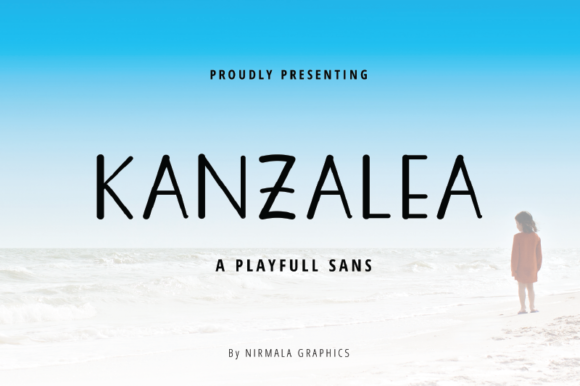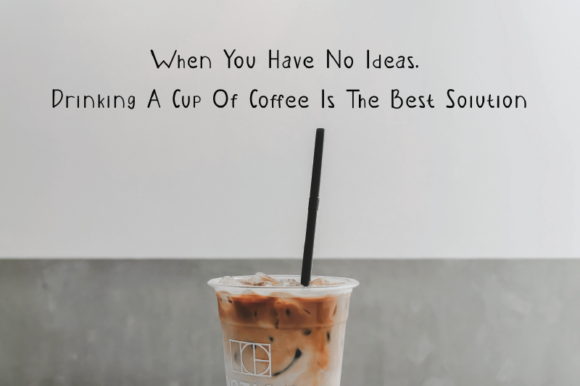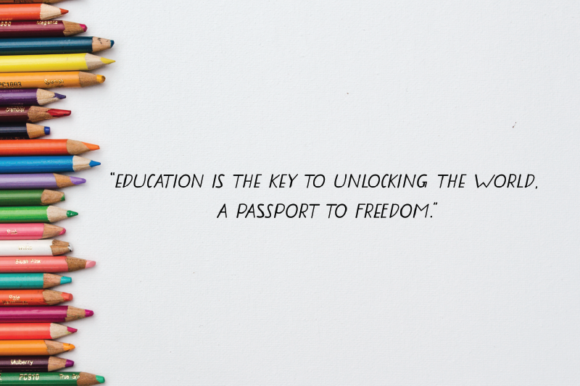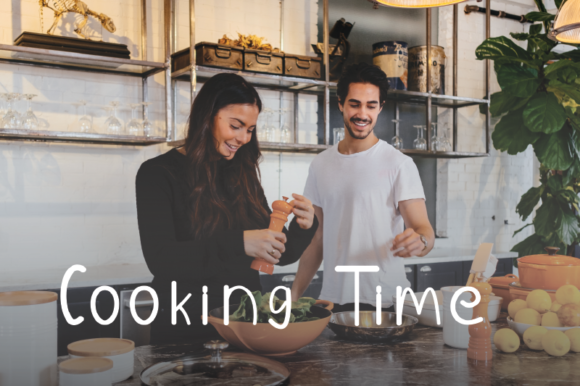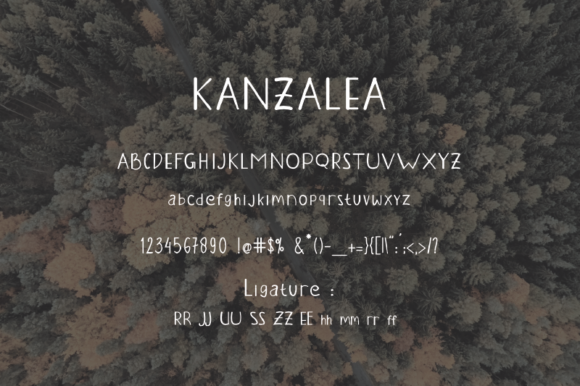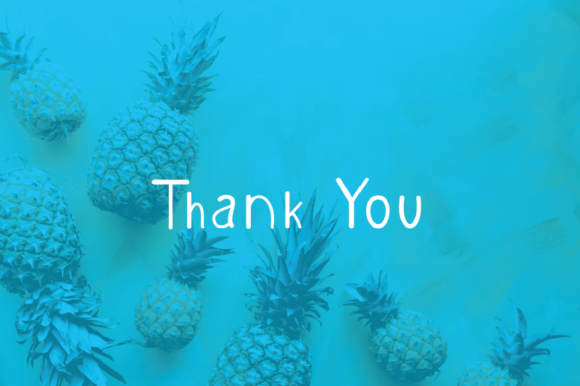
HomeScript FontsKanzalea Font Script Fonts Kanzalea Font FacebookXPinterestWhatsApp Kanzalea Font Poster 2 Kanzalea Font Poster 3 Kanzalea Font Poster 4 Kanzalea Font Poster 5 Kanzalea Font Poster 6 About Kanzalea Font Kanzalea is a playful sans typeface made with unusual letters. Get inspired by its contemporary coolness! DOWNLOAD ON CREATIVE FABRICAThis font is sold and delivered by Creative Fabrica. Font Canyon may earn a commission if you buy through this link. People also explored Cunning Fox Font Blue Spring Line Monogram Font Estrela Font Young Rich Font Diegona Font Astro Font Chocolate Kids Font Butterly Font Education Font 310 0 TagsKanzalea Font Previous articleBirmingham FontNext articleFrolicking Font LEAVE A REPLY Cancel reply Comment: Please enter your comment! Name:* Please enter your name here Email:* You have entered an incorrect email address! Please enter your email address here Website: Save my name, email, and website in this browser for the next time I comment. Personal Use Free Dakwart Letter Personal Use Free Read more about this font BD Nokio Personal Use Free Read more about this font Oatmeal Personal Use Free Read more about this font Written by Hand Personal Use Free Read more about this font BLOG 5 Fonts That Will Dominate Design Trends in 2026 5 Fonts for 2026 That Will Dominate Design Trends Typography plays a critical role in visual communication, and as we look ahead to 2026, itβs... Exploring Font Trends Best Fonts for T-Shirt Design β Top 2025 Picks How to Install and Use Fonts on Windows, macOS, and Web Projects